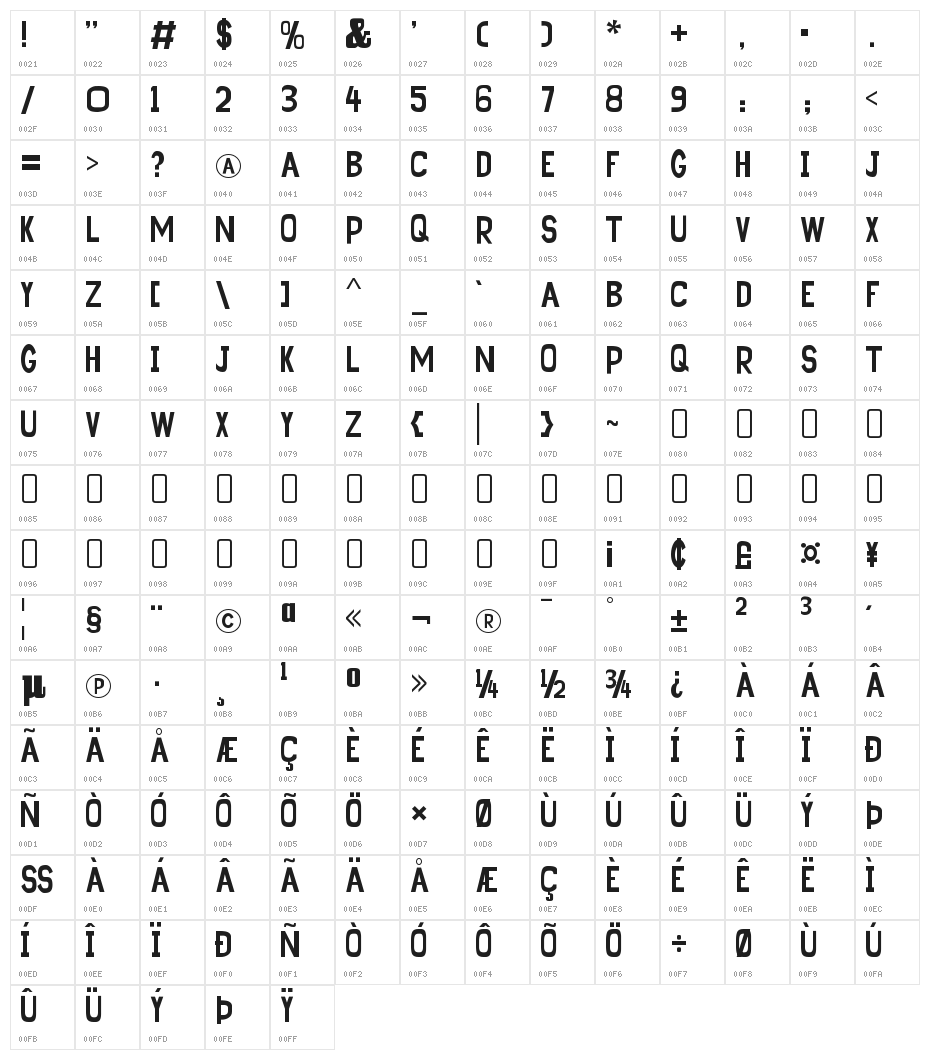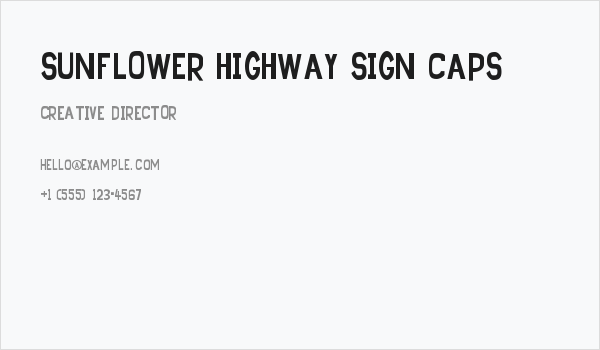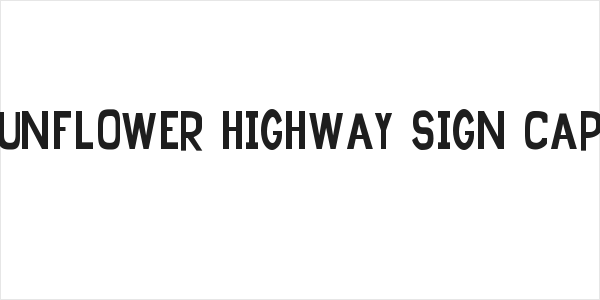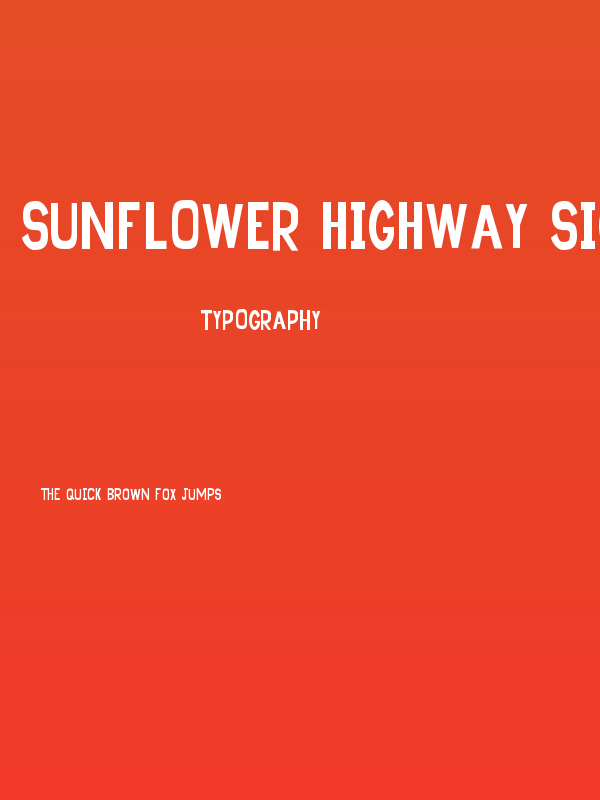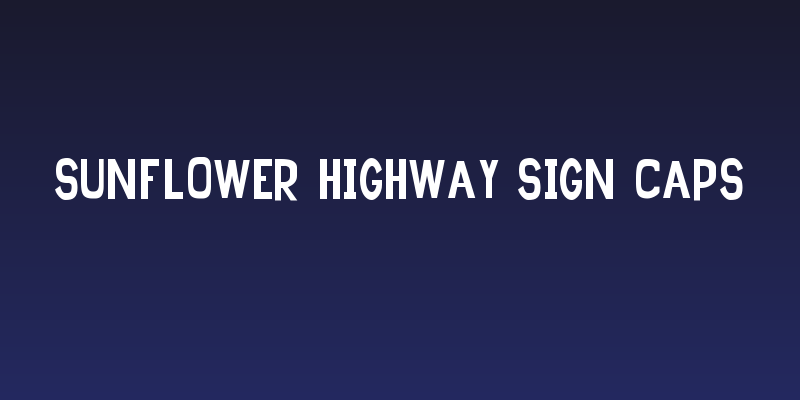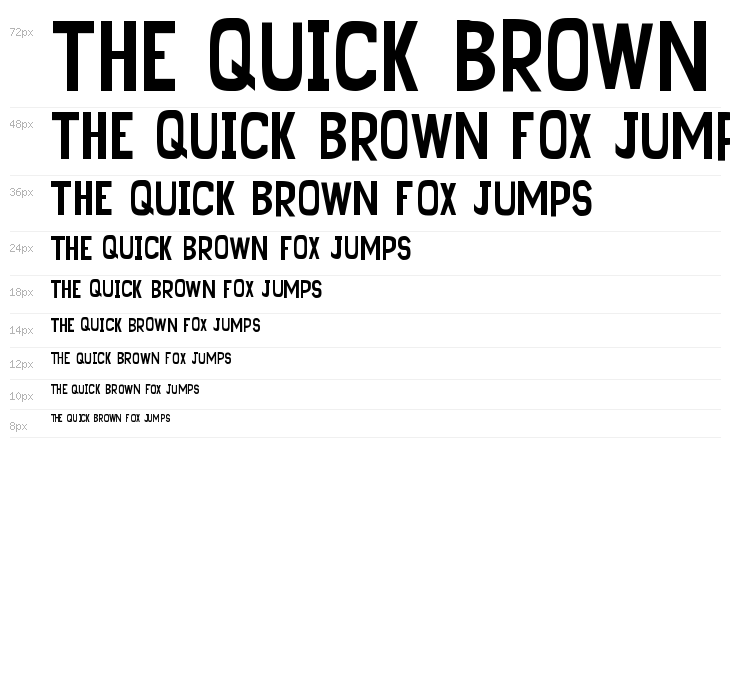
Sunflower Highway Sign Caps Font
Sunflower Highway Sign Caps Description
This font features bold, uppercase letters with a strong, geometric structure. The characters are designed with a uniform stroke width, giving them a clean and modern appearance. The numbers and special characters maintain the same boldness and clarity, ensuring legibility across various applications. The overall design is straightforward and impactful, making it suitable for attention-grabbing displays. The spacing between characters is tight, which enhances the compact and cohesive look of the text. This font is ideal for use in signage, posters, and any project requiring a bold statement.
| Use Case | Headlines, Signage, Posters |
| Proposed Projects | Ideal for highway signs, posters, banners, and any display needing high visibility. |